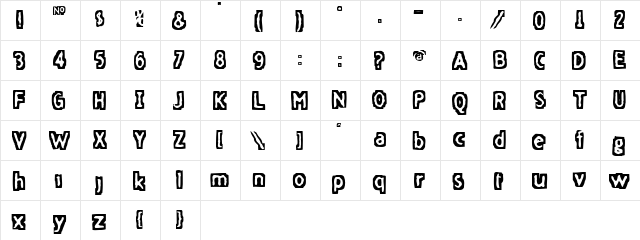
FiveFingerDiscount Regular
Design Context for FiveFingerDiscount Typeface
FiveFingerDiscount is a composed and adaptable typeface that performs quietly and consistently across a wide range of design contexts.